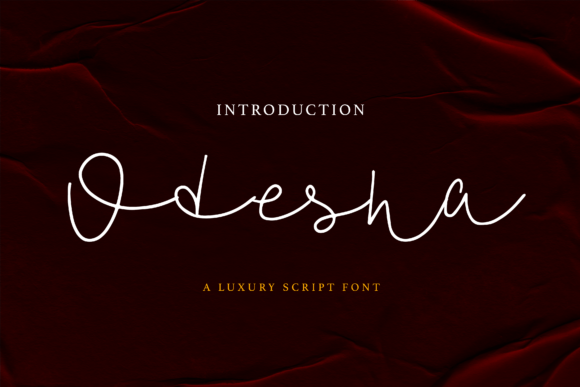
Journey into the realm of elegance and sophistication with Odesha Font, a captivating script font that will leave you spellbound. Crafted with meticulous attention to detail by the renowned MORO Design, Odesha is a visual masterpiece that exudes charm and versatility. Its graceful strokes and flowing curves mimic the beauty of handwritten calligraphy, evoking a sense of intimacy and warmth.
Indulge in the boundless creative possibilities that Odesha Font offers. With its extensive range of applications, from greeting cards to headlines, Odesha effortlessly elevates your designs, adding a touch of romance and allure to every project. Let your imagination run wild as you explore the myriad ways to incorporate Odesha's enchanting presence into your work.
Elevate your designs to new heights with Odesha Font. Its versatility knows no bounds, making it the perfect choice for a wide spectrum of projects. From crafting heartfelt greeting cards to creating eye-catching headlines, Odesha seamlessly adapts to your creative vision. Its elegant presence adds a touch of sophistication to any design, leaving a lasting impression on your audience.
Dive into the world of Odesha Font and unlock the gateway to creative freedom. Let its graceful strokes guide you as you craft stunning designs that captivate hearts and minds. Experience the joy of seamless creativity as Odesha effortlessly transforms your ideas into visual masterpieces. Embrace the beauty of handwritten elegance and embark on a creative journey that will leave you inspired and exhilarated.